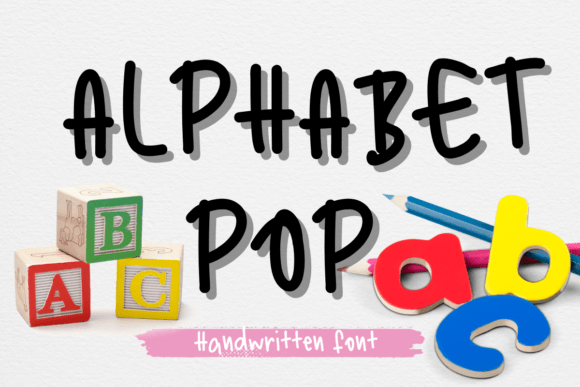
Introduction to Alphabet Pop Font
Alphabet Pop Handwritten is a cute, modern handwritten font with a bubbly, fun style.
Perfect for kid-friendly designs, cards, logos, and digital projects It includes full support for Spanish, Italian, French, German, and Portuguese, so your creativity can go global.